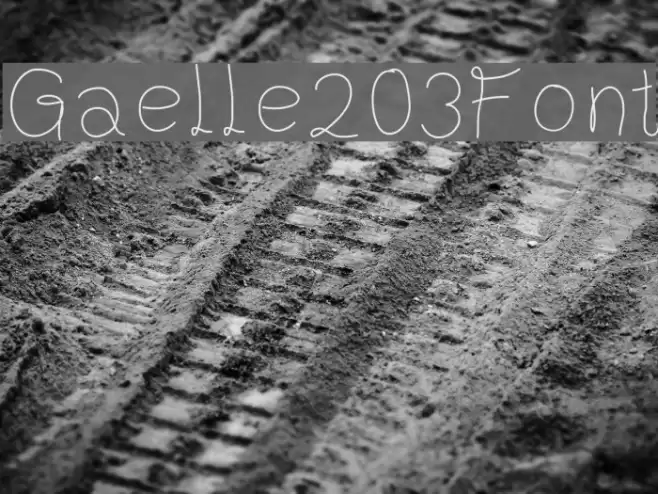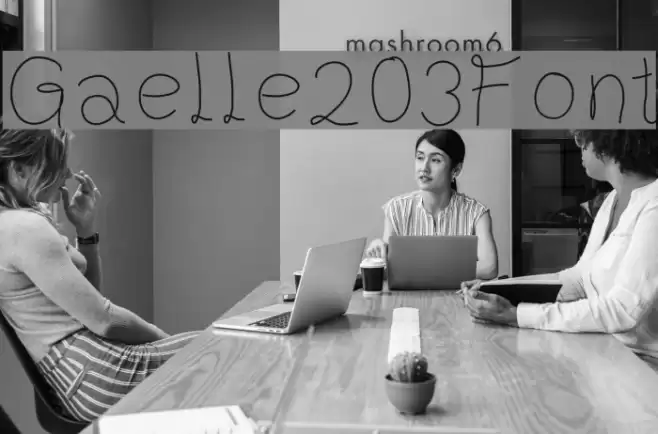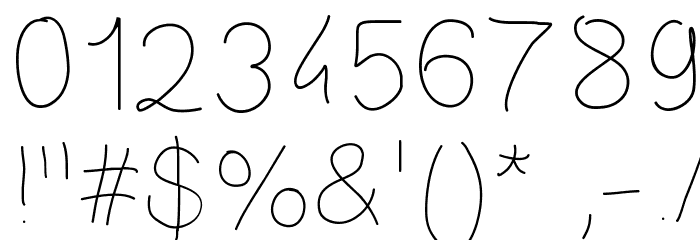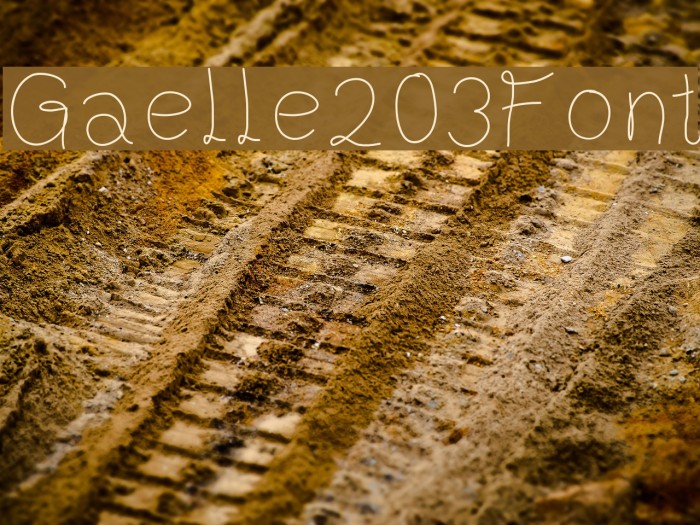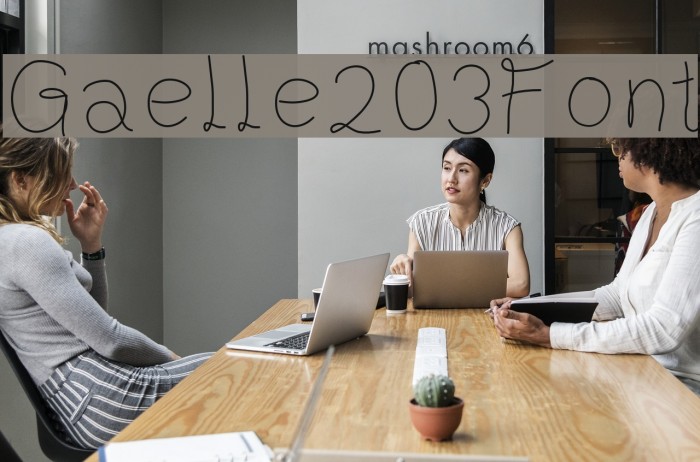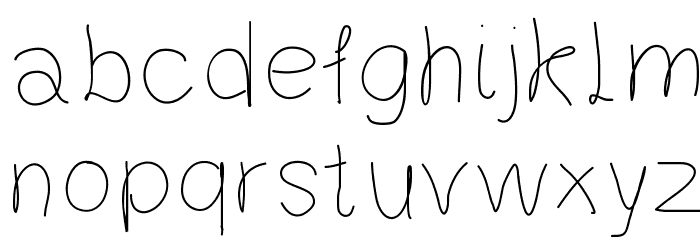
Gaelle203Font Font
Gaelle203Font Description
This font features a playful and whimsical design with a handwritten style. The characters are thin and elongated, with a consistent stroke width that gives it a light and airy feel. The uppercase letters have a unique, slightly tilted appearance, while the lowercase letters maintain a more traditional form. The numbers and special characters follow the same playful aesthetic, making them stand out in a fun and engaging way. This font's overall look is casual and friendly, perfect for projects that require a personal touch.
A playful, handwritten font with thin, elongated characters and a whimsical style from Handwritten fonts.
- Proposed Projects: Ideal for greeting cards, children's books, playful branding, and casual invitations.
- Overall Style: Casual, Playful
- Use Case: Headlines, Informal text, Creative projects